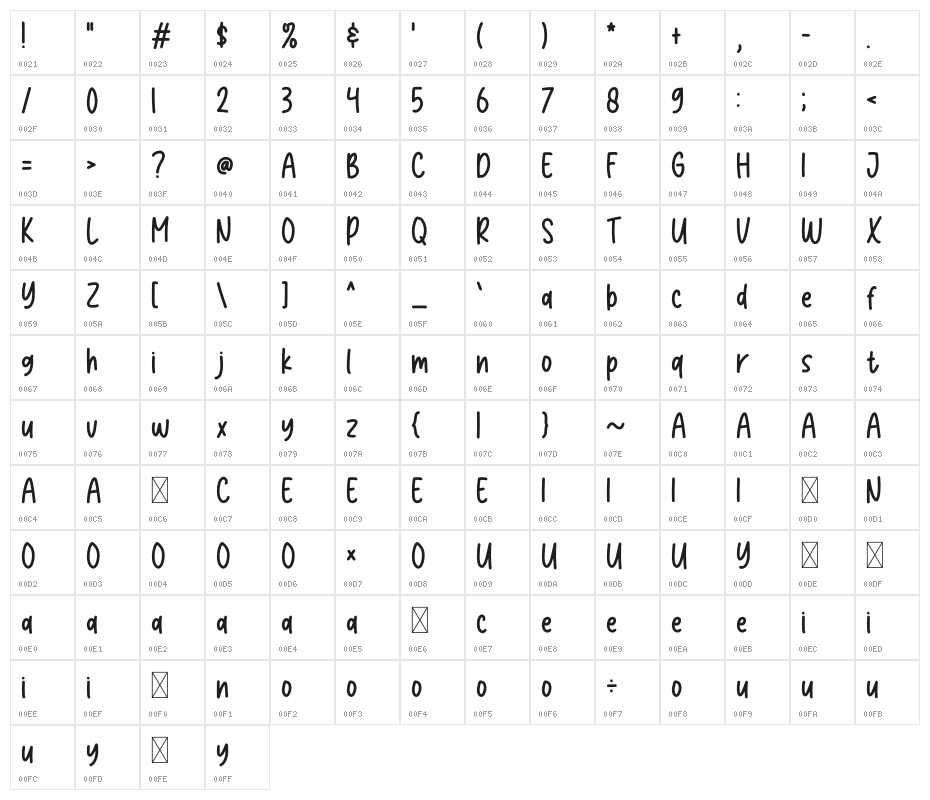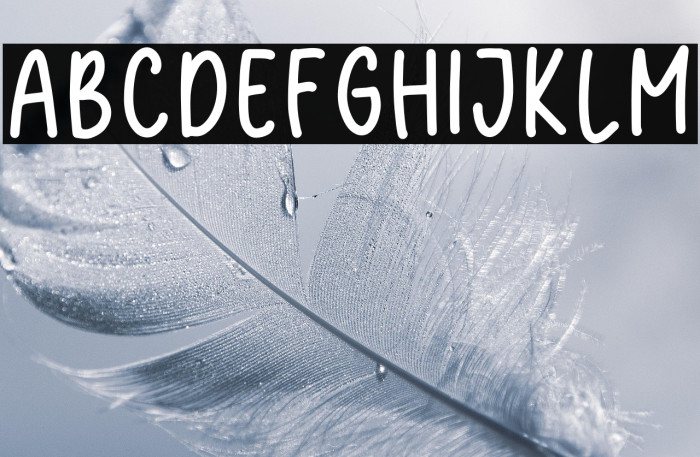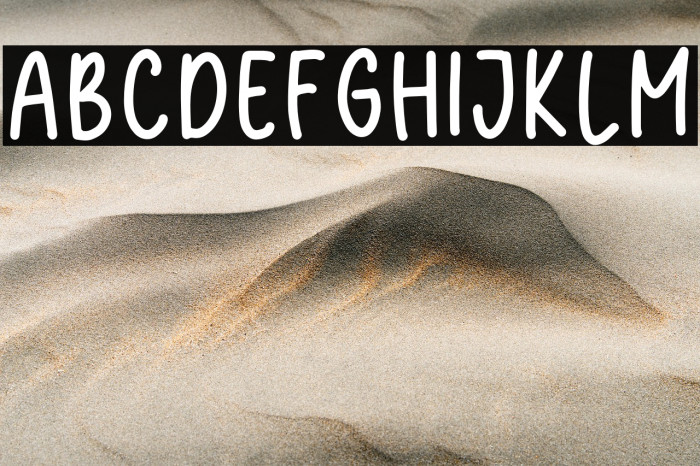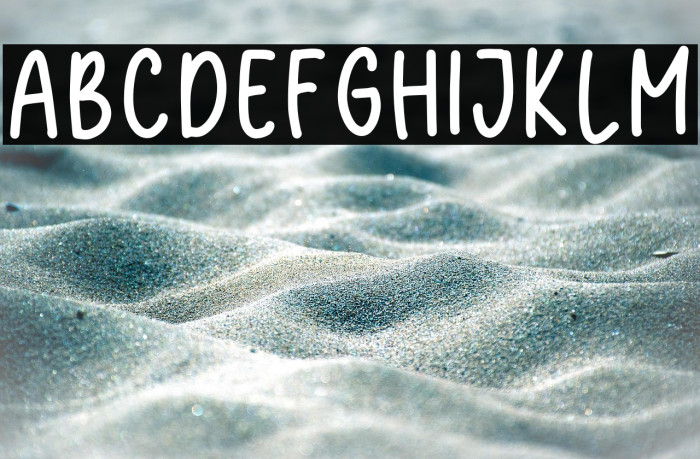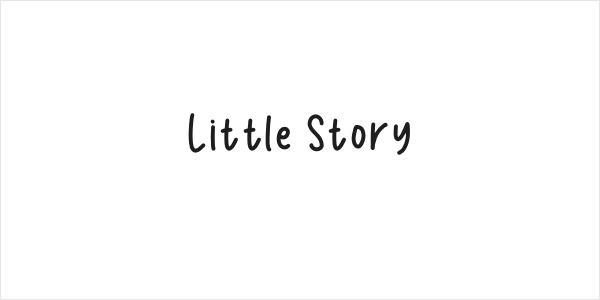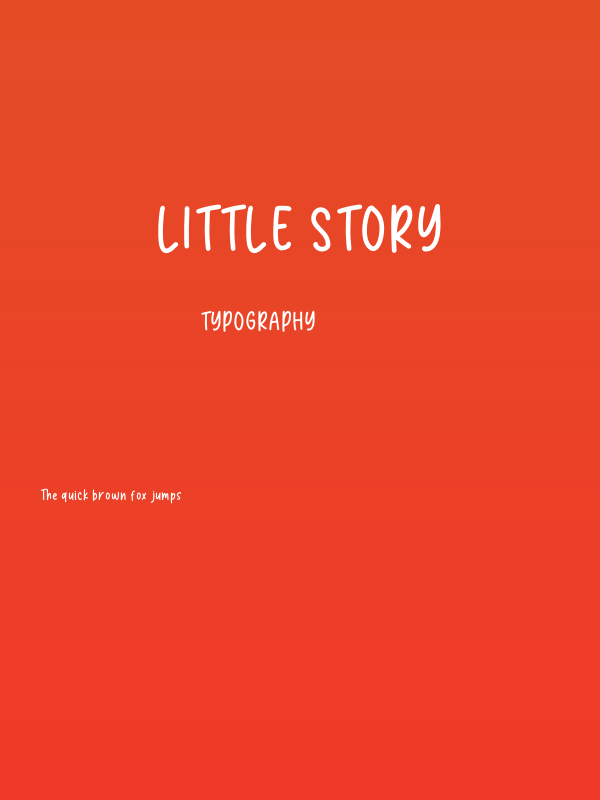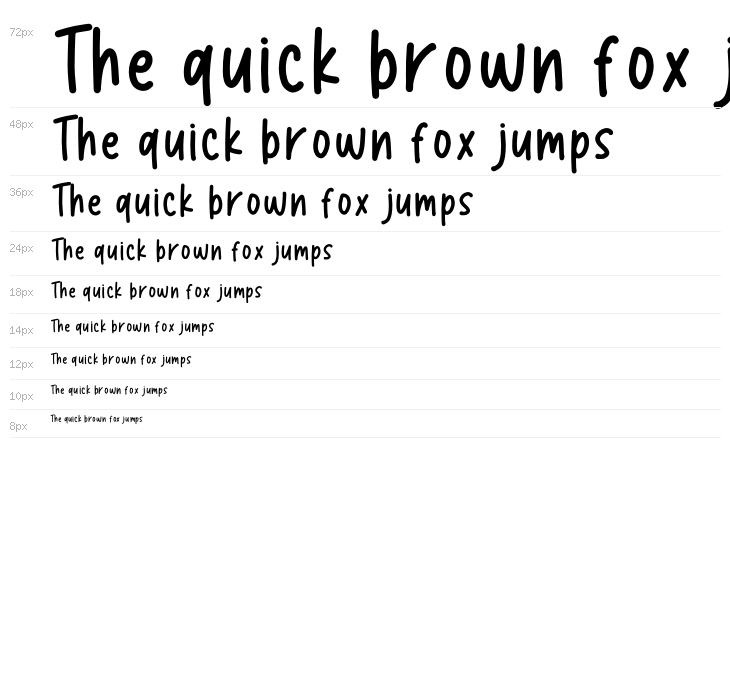
Little Story Font
Little Story Description
This playful and informal font features a handwritten style with a casual and friendly appearance. The letters are slightly uneven, adding a personal touch that mimics natural handwriting. The strokes are consistent in thickness, providing a uniform look across all characters. The uppercase letters are bold and prominent, while the lowercase letters maintain a similar style with a slightly smaller size. Numbers and special characters are designed to match the overall aesthetic, ensuring cohesion throughout. This font is ideal for projects that require a warm and approachable feel.
| Use Case | Headlines, Informal text, Personal projects |
| Proposed Projects | Ideal for greeting cards, children's books, personal blogs, and informal branding. |